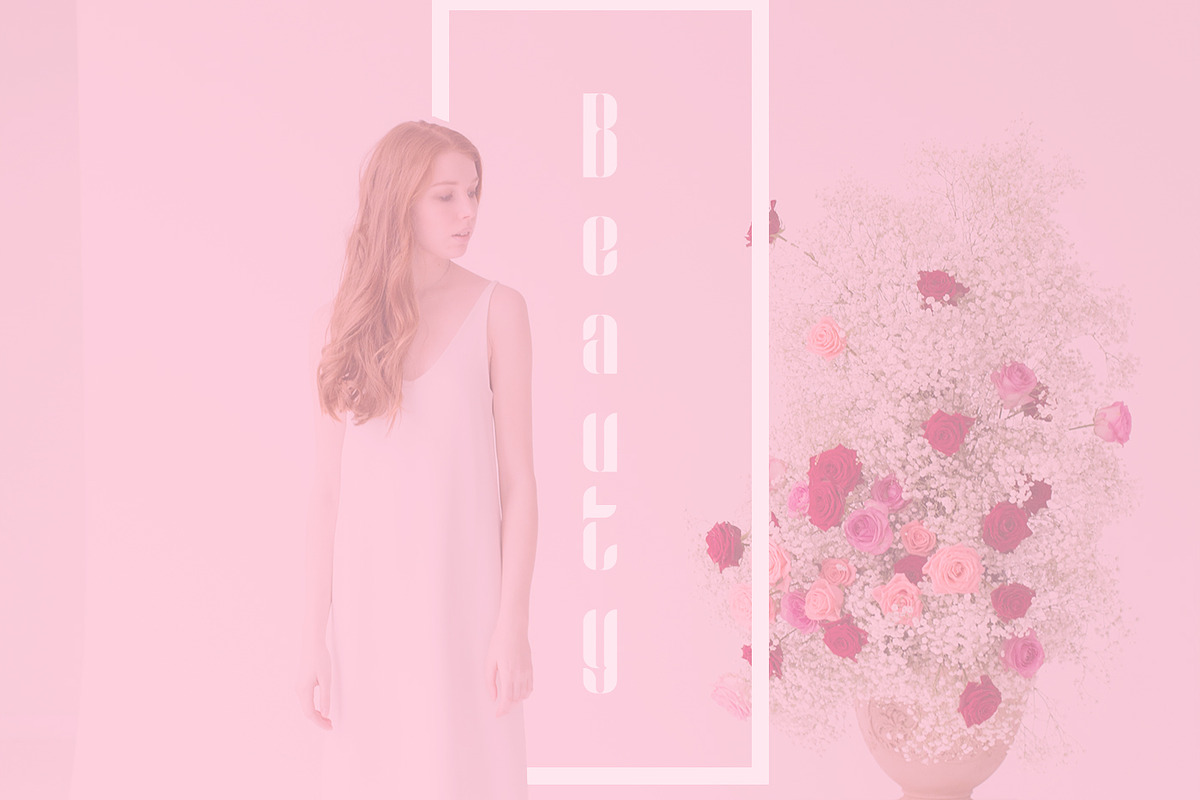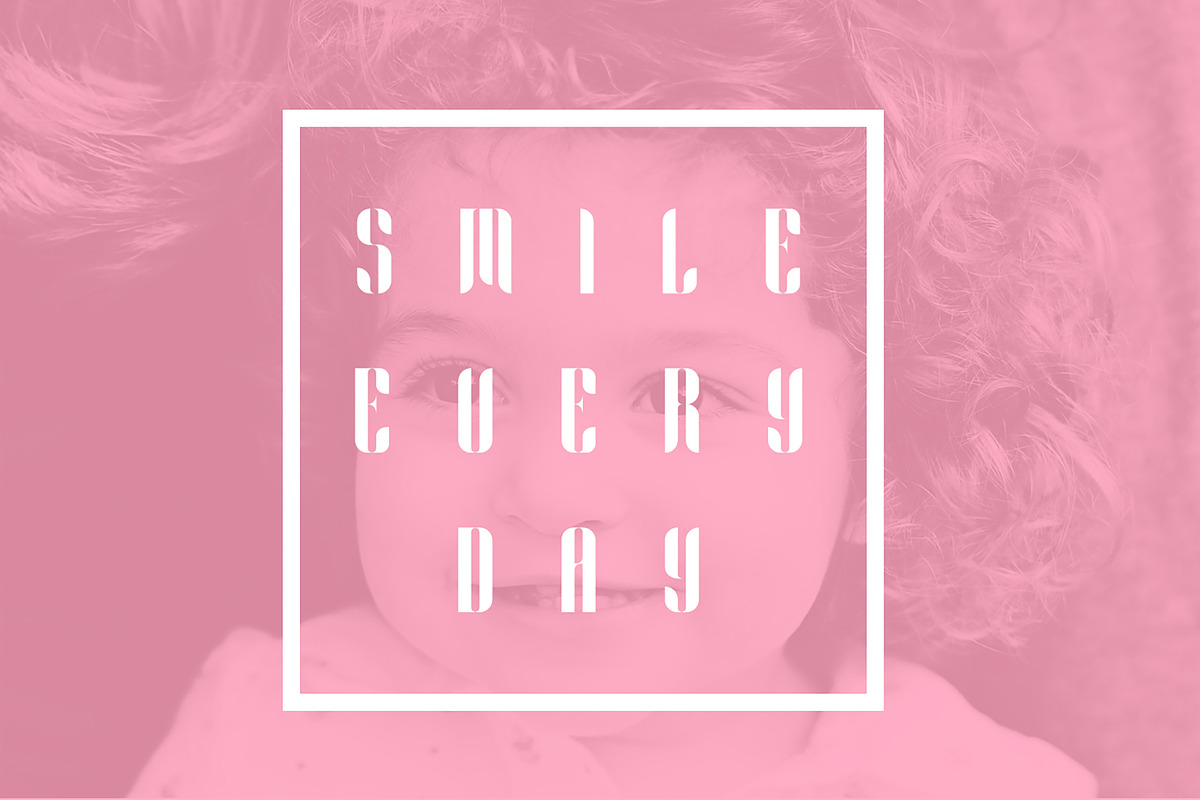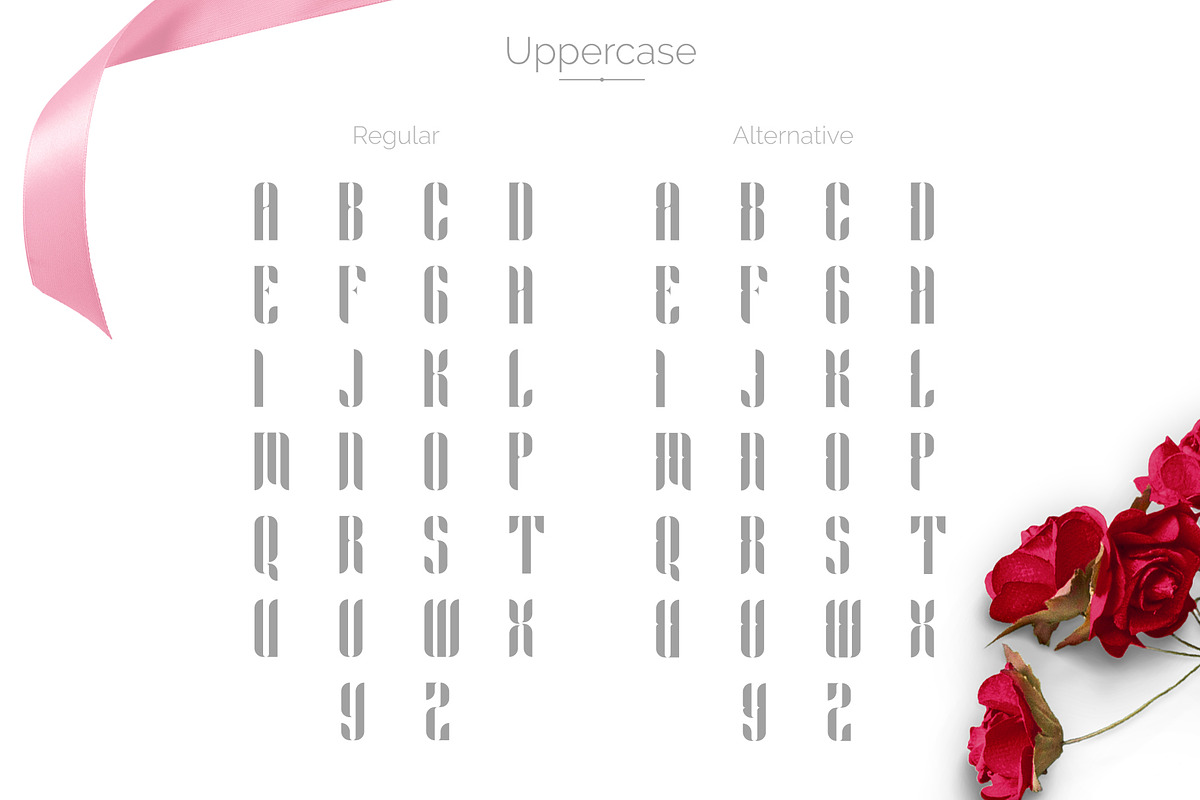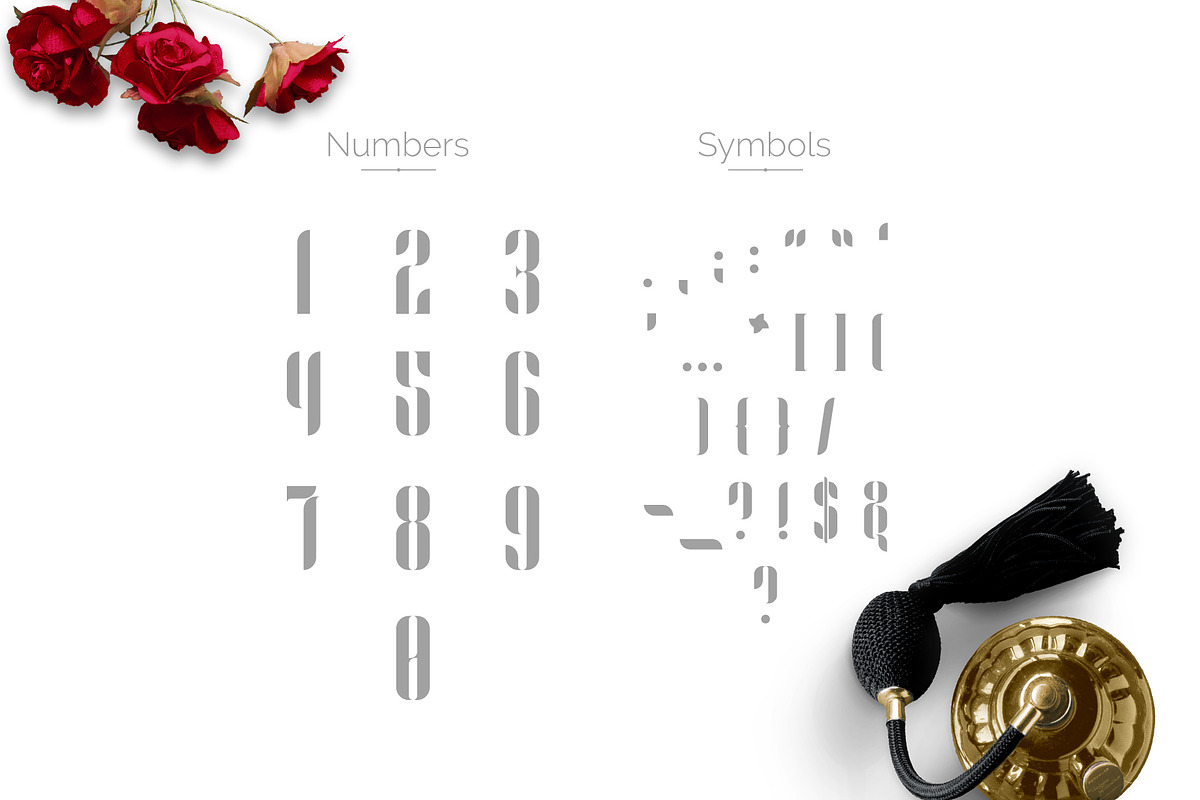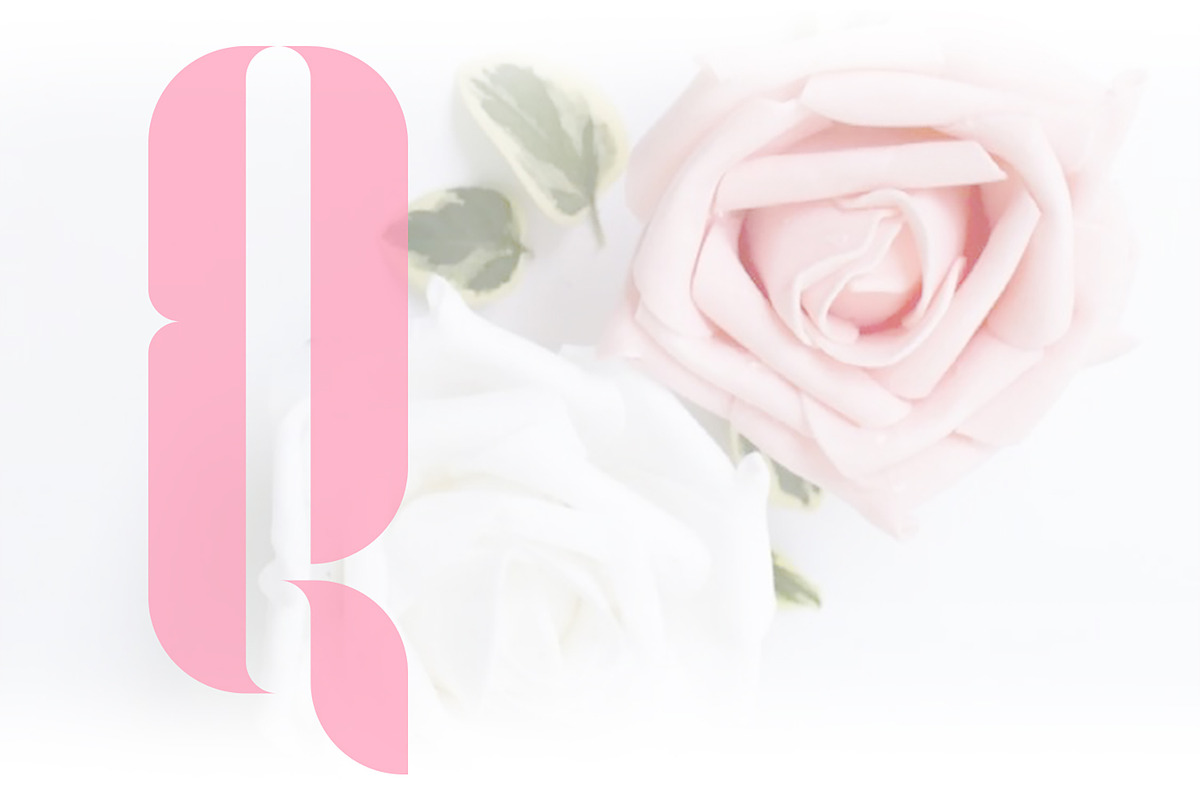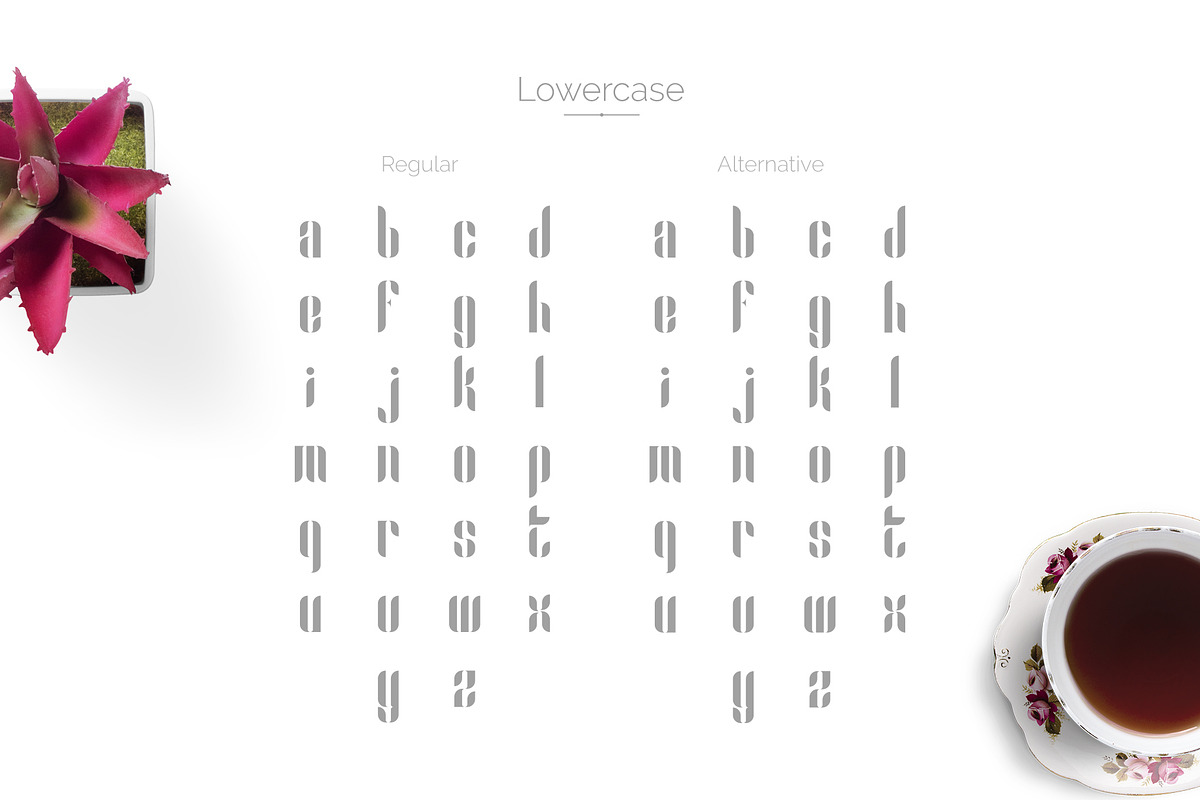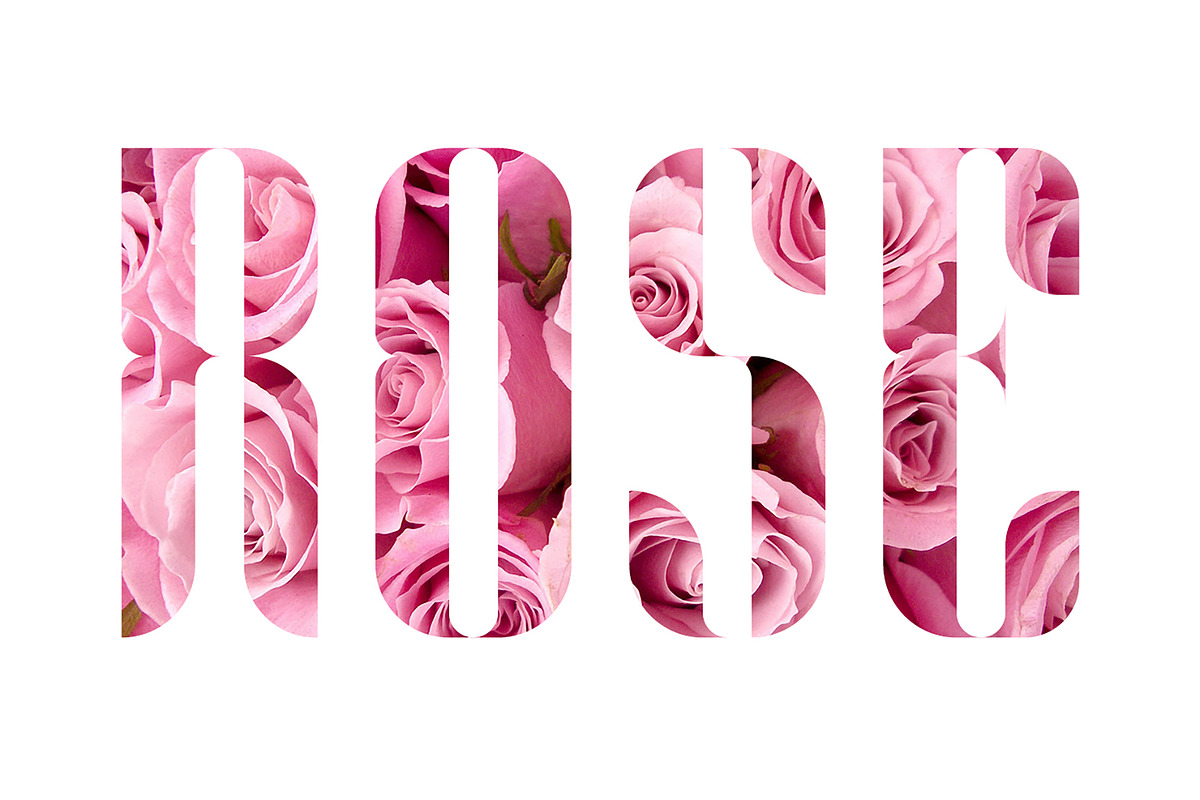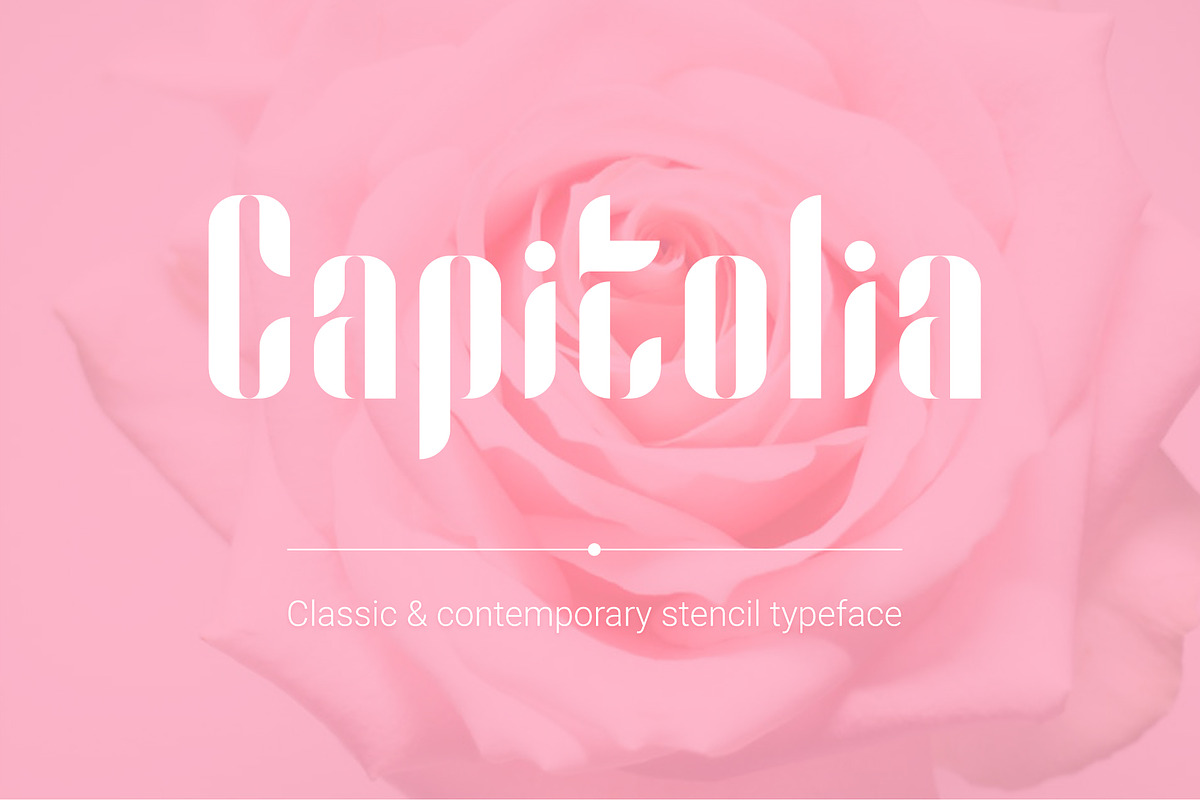
Capitolia - Stencil Typeface
Capitolia is classic & contemporary stencil typeface, it’s the representation of the point where the past is connected with the future. Coming with an alternative option.
Discretionary Ligatures